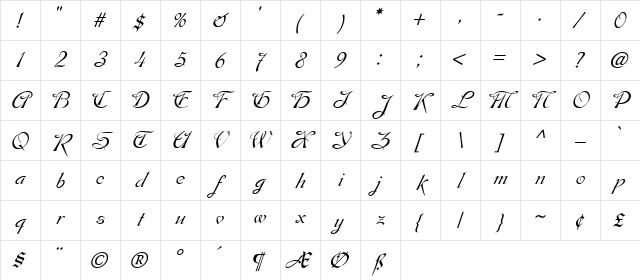
Esperanza Regular
Design Context for Esperanza
Esperanza is a composed and adaptable typeface that performs quietly and consistently across a wide range of design contexts.